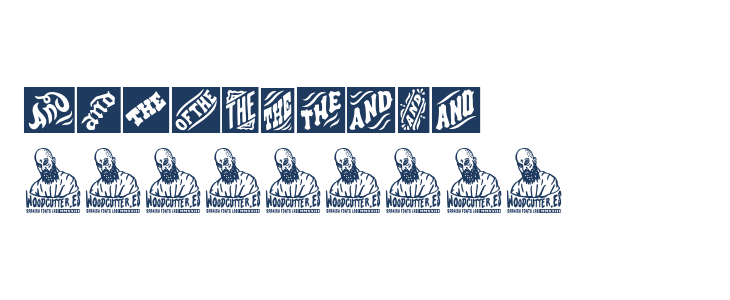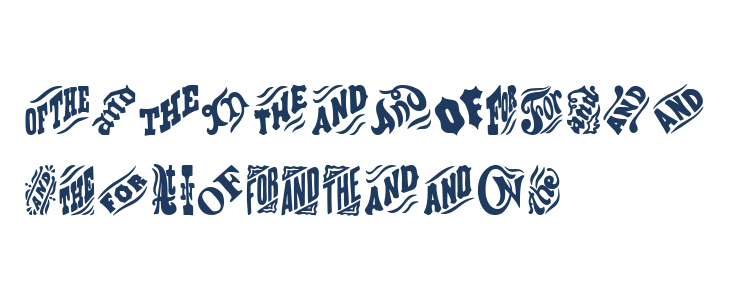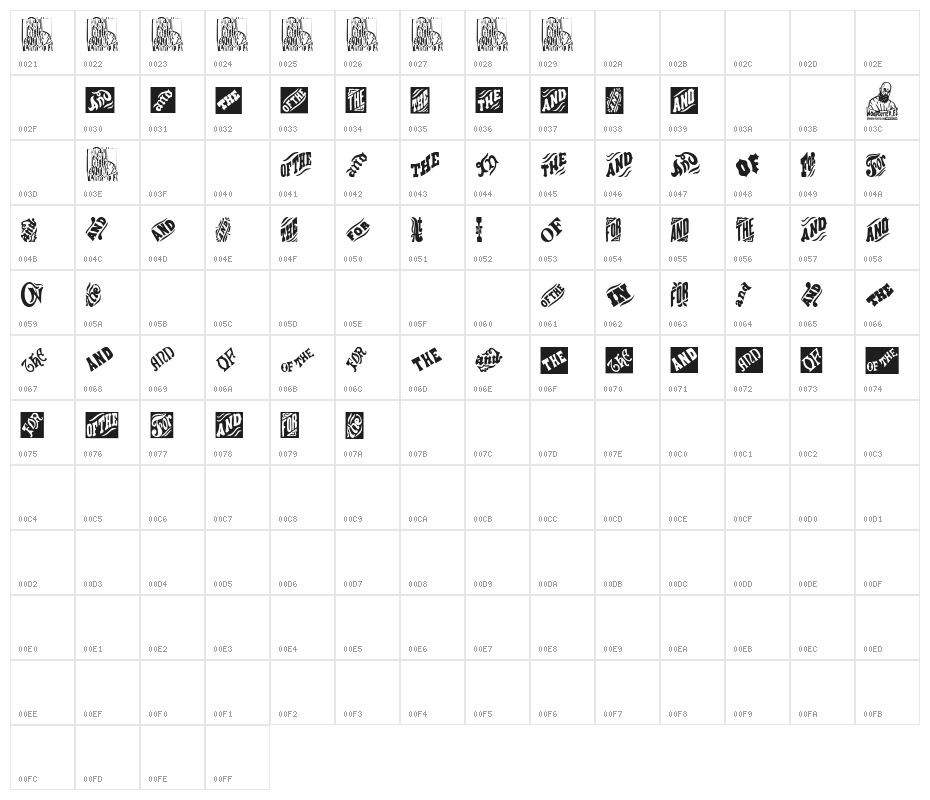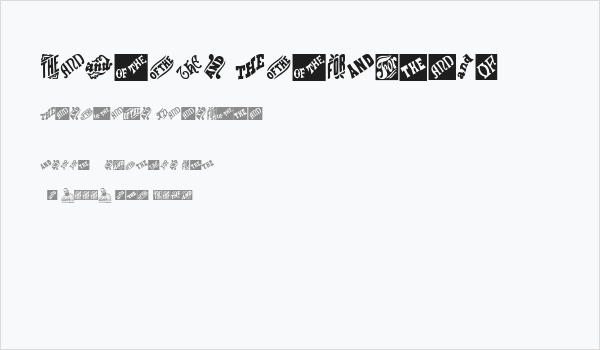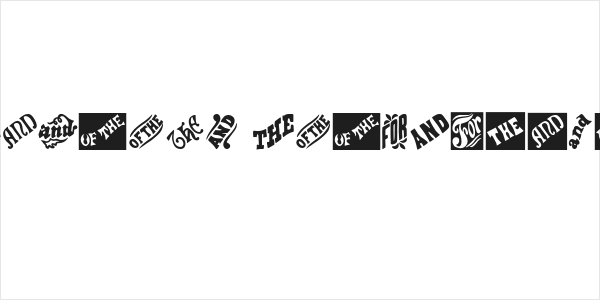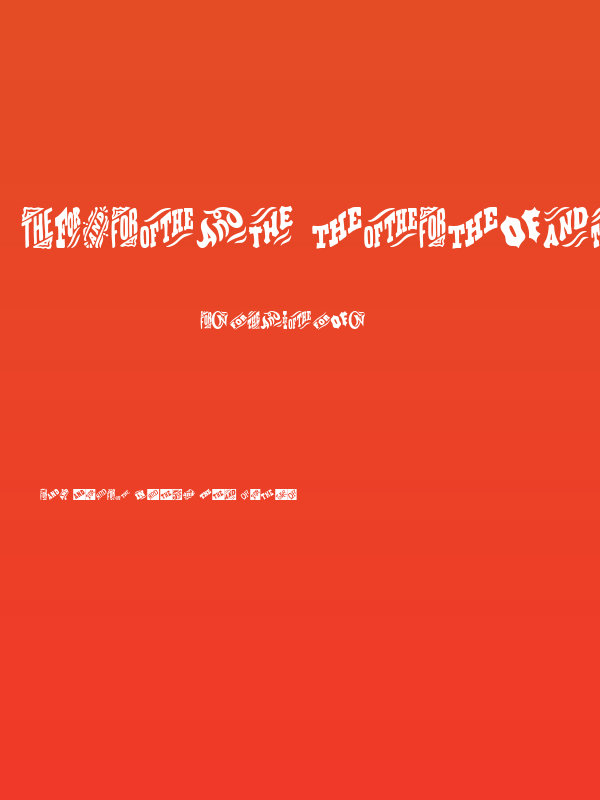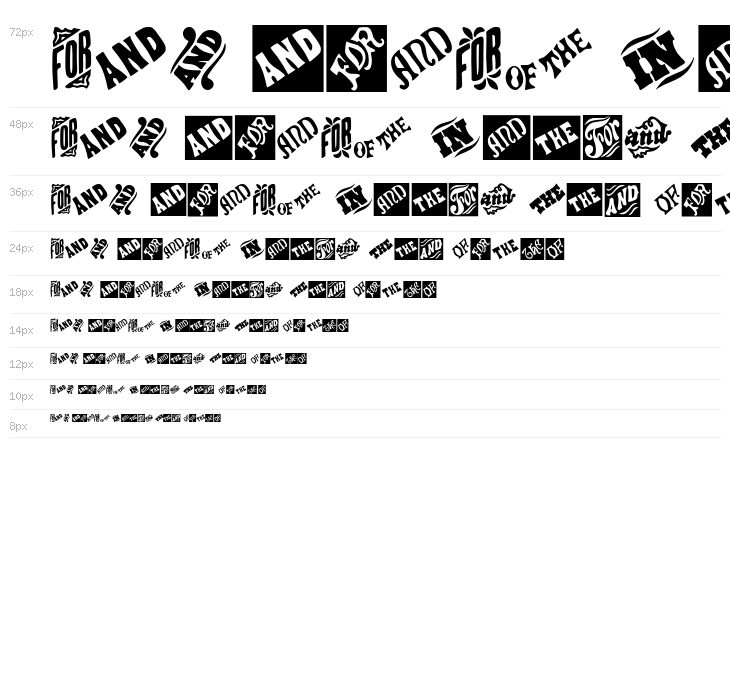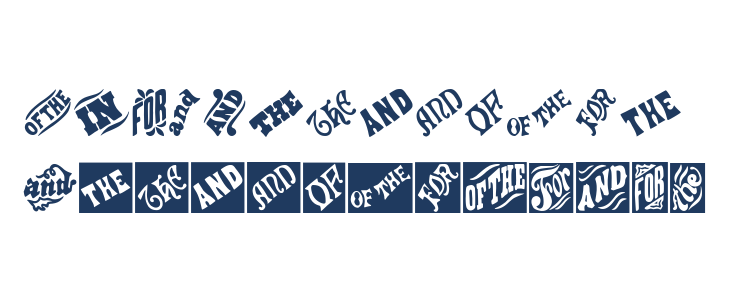
Vintage Catchwords Font
Vintage Catchwords Description
A decorative display font featuring vintage catchwords in bold, stylized letterforms with ornate, hand-drawn embellishments and varying shapes, reminiscent of 19th-century woodcut typography. Each word is presented in a unique, highly graphic block or banner style, often with dramatic curves, swashes, and high contrast between thick and thin strokes.
| Overall Style | Vintage, Decorative |
| Use Case | Headlines, Logos, Posters, Decorative elements |
| Proposed Projects | Posters, vintage packaging, event invitations, signage, branding for retro-themed businesses, editorial design, and decorative headings. |